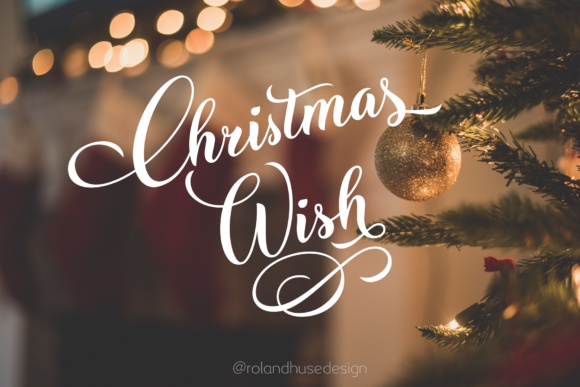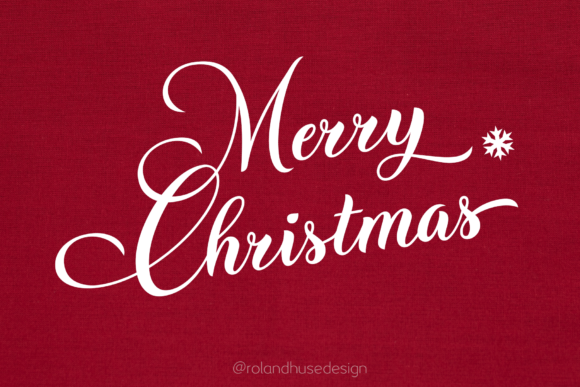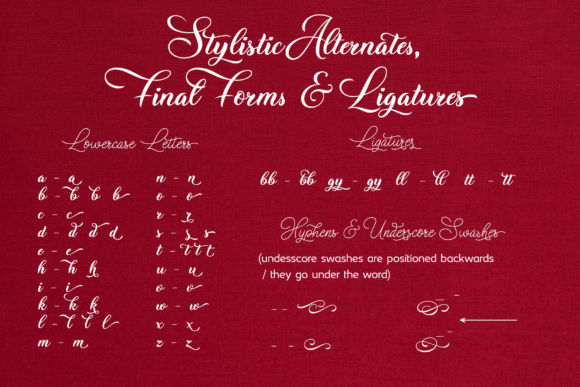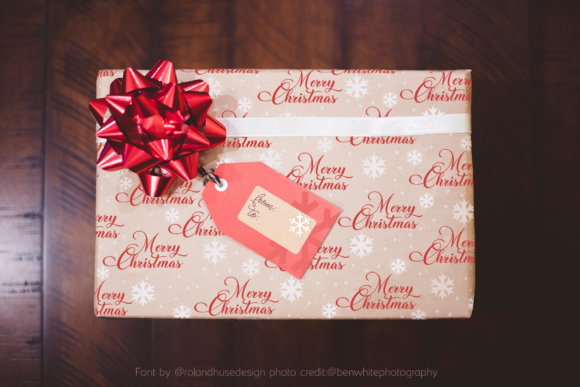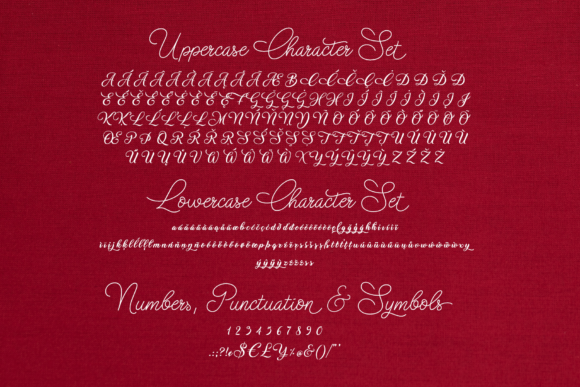
Christmas Wish Font
Introducing Christmas Wish: The Gorgeous Cursive Brush Font
Unleash the holiday magic with Christmas Wish, a gorgeous cursive brush font that exudes a calligraphy style. This font comes in two weights: a thin monoline and a brush calligraphic version, giving you the versatility to add a touch of elegance or a playful vibe to your holiday projects.
Christmas Wish’s stunning cursive brush style brings a sense of beauty and sophistication to your text. Its smooth strokes and artistic curves make your words exude a captivating and elegant energy, perfect for adding a touch of magic to your holiday designs.
As a font that boasts amazing alternates and swashes, Christmas Wish becomes the go-to choice for holiday-themed projects that demand creativity and charm. Its calligraphic flair ensures that your work resonates with an authentic and artistic look, spreading holiday cheer to all who behold it.
Embrace the holiday spirit with Christmas Wish as you embark on your creative journey. Let it be the font that enhances your ideas, allowing you to create designs that are full of festive joy and elegance.
As you explore the possibilities of Christmas Wish, you’ll find it to be a font that elevates your designs with ease. Its gorgeous alternates and swashes transform your work, ensuring that your holiday projects, from greeting cards to festive invitations, leave a lasting impression.
So, add Christmas Wish to your font collection and notice how it brings a touch of magic to your holiday designs. Embrace its calligraphy style and alternates, and create projects that spread the joy and beauty of the holiday season. With Christmas Wish as your font of choice, your creations will resonate with a sense of elegance and festive spirit, captivating your audience and leaving a lasting impression. Embrace the holiday magic of Christmas Wish and create projects that are truly gorgeous and irresistibly captivating!